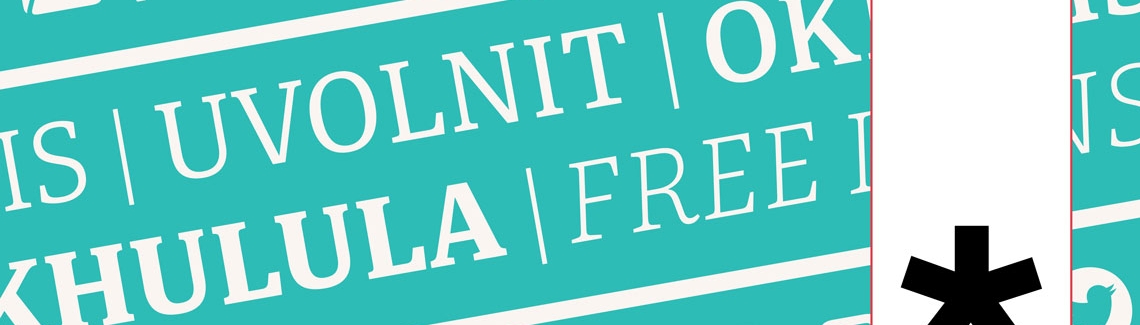
Portada awarded Silver in the European Design Awards 2017
We are delighted to announce that Portada has been awarded with the Silver medal in the European Design Awards in the category Original Typeface. In these uncertain times we are humbled to be part of the global design and typography community and honoured to receive an European award.
Portada is a rare serif made specifically for UI, small screens, and web use amidst quickly changing technology. Portada also includes an icon set completely free. You can download it from here.